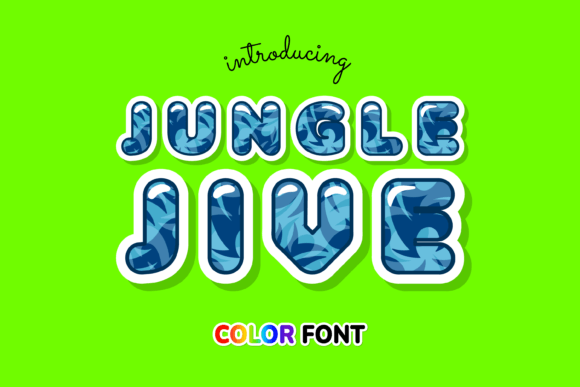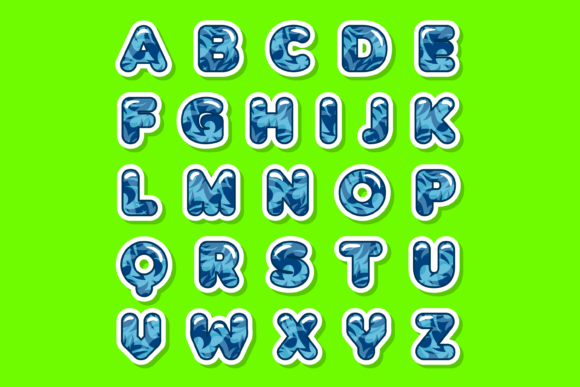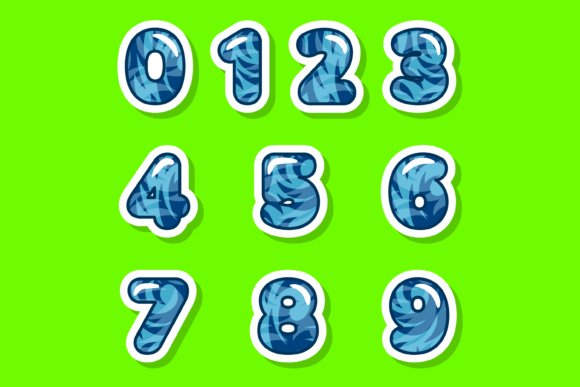
Jungle Jive Font
About Jungle Jive Font
Jungle Jive is a vibrant and playful color font that embodies the lively spirit of the tropical jungle. With its energetic and fun-filled design, this font is the perfect choice for custom designs, DIY crafts, and any creation that needs a touch of tropical flair.
Imagine using Jungle Jive to create eye-catching posters for a beach party, designing playful and colorful invitations for a luau-themed event, or crafting vibrant social media graphics that transport your audience to a tropical paradise. The font’s lively characters and tropical motifs will instantly infuse your creations with a sense of joy and adventure.
Jungle Jive features a variety of vibrant colors and whimsical patterns, allowing you to mix and match to create unique combinations that suit your creative vision. Each letter is carefully crafted to capture the essence of the jungle, incorporating elements like exotic plants, tropical animals, and tropical fruits.
Whether you’re designing a logo for a beachside cafe, adding a tropical touch to your DIY crafts, or simply looking to bring a fun and vibrant atmosphere to your creative projects, Jungle Jive is an amazing choice. Its bold and energetic style will make your designs stand out and leave a lasting impression.
Embrace the tropical vibes of Jungle Jive and let your creativity run wild. With this font, you can add a touch of fun and excitement to your designs, creating an immersive experience that transports viewers to a vibrant tropical world. Get ready to jive to the rhythm of the jungle with Jungle Jive!